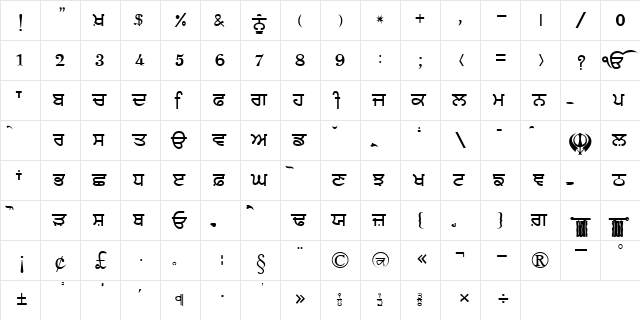
Sukhmani Normal
Design Context for Sukhmani Typeface
Sukhmani takes a measured approach to typography — its balanced proportions and neutral character make it a reliable workhorse for both digital and print work.